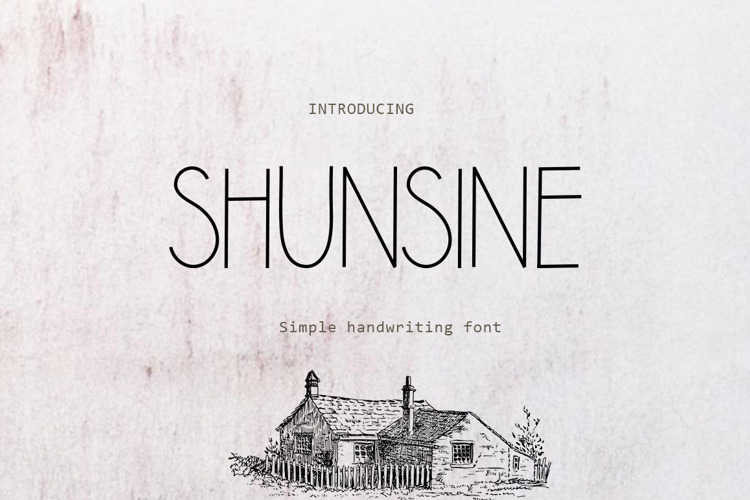
SHUNSINE Font
About SHUNSINE Font
Shunsine is perfect for your upcoming projects such as luxury logo and branding, classy editorial design, woman magazine, cosmetic brand, fashion promotional, art gallery branding, museum, historical architecture, boutique branding, stationery design, blog design, modern advertising design, card invitation, art quote, home decor, book/cover title, special events, and more.https://www.creativefabrica.com/product/shunsine/ref/969438/